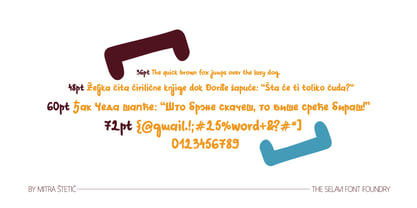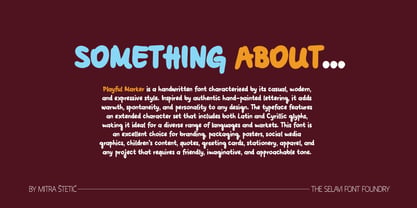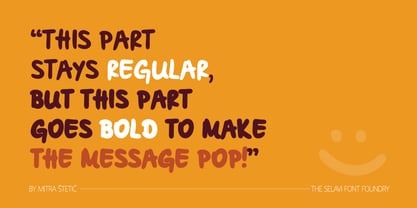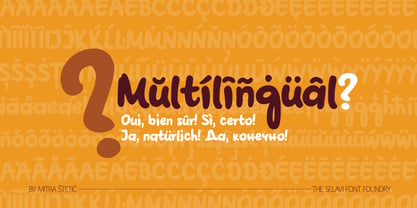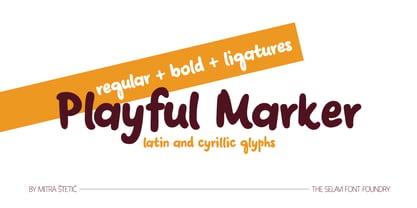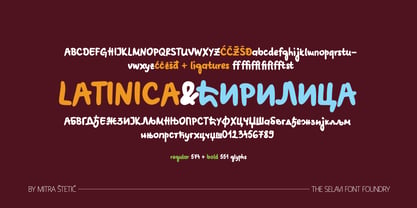
Playful Marker
by The Selavi Font Foundry
The Playful Marker Font Family was designed by Mitra Štetić and published by The Selavi Font Foundry. Playful Marker contains 2 styles and family package options. More about this family
Playful Marker is a handwritten font characterized by its casual, modern, and expressive style. Inspired by authentic hand-painted lettering, it adds warmth, spontaneity, and personality to any design. The typeface features an extended character set that includes both Latin and Cyrillic glyphs, making it ideal for a diverse range of languages and markets. This font is an excellent choice for branding, packaging, posters, social media graphics, children’s content, quotes, greeting cards, stationery, apparel, and any project that requires a friendly, imaginative, and approachable tone.
Designers: Mitra Štetić
Foundry: The Selavi Font Foundry